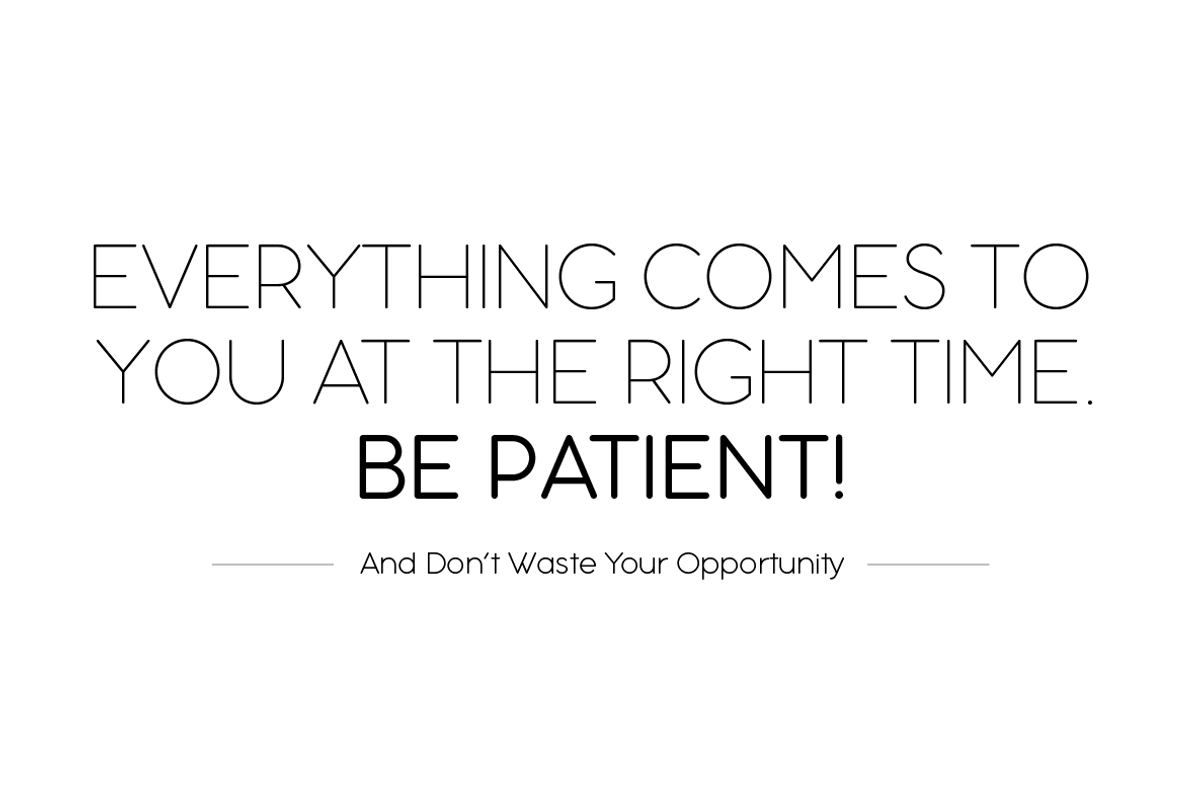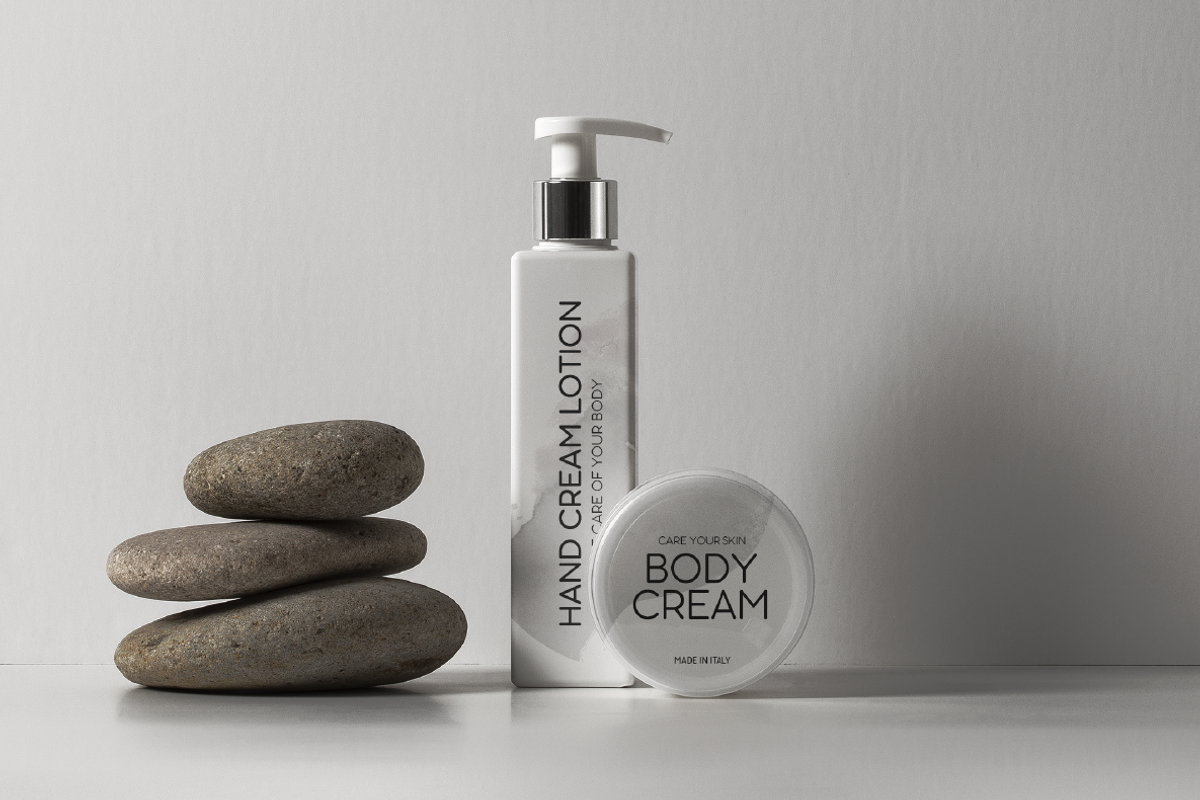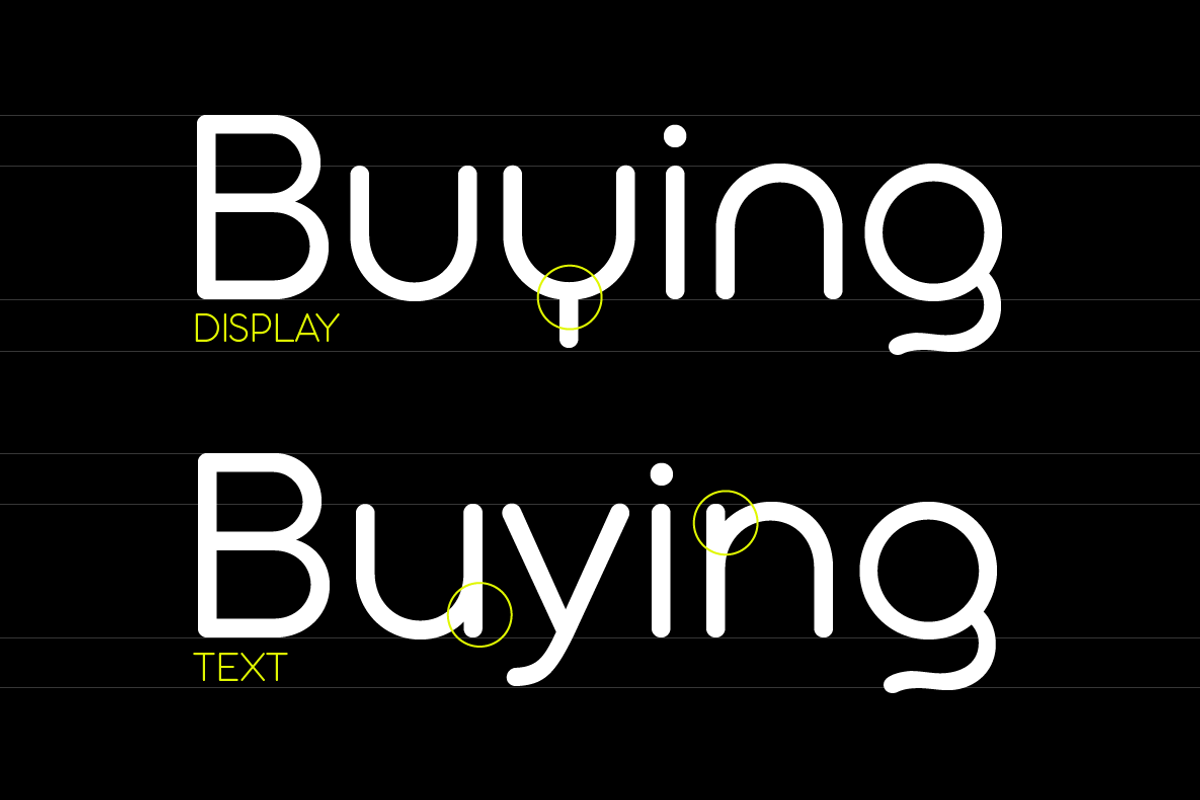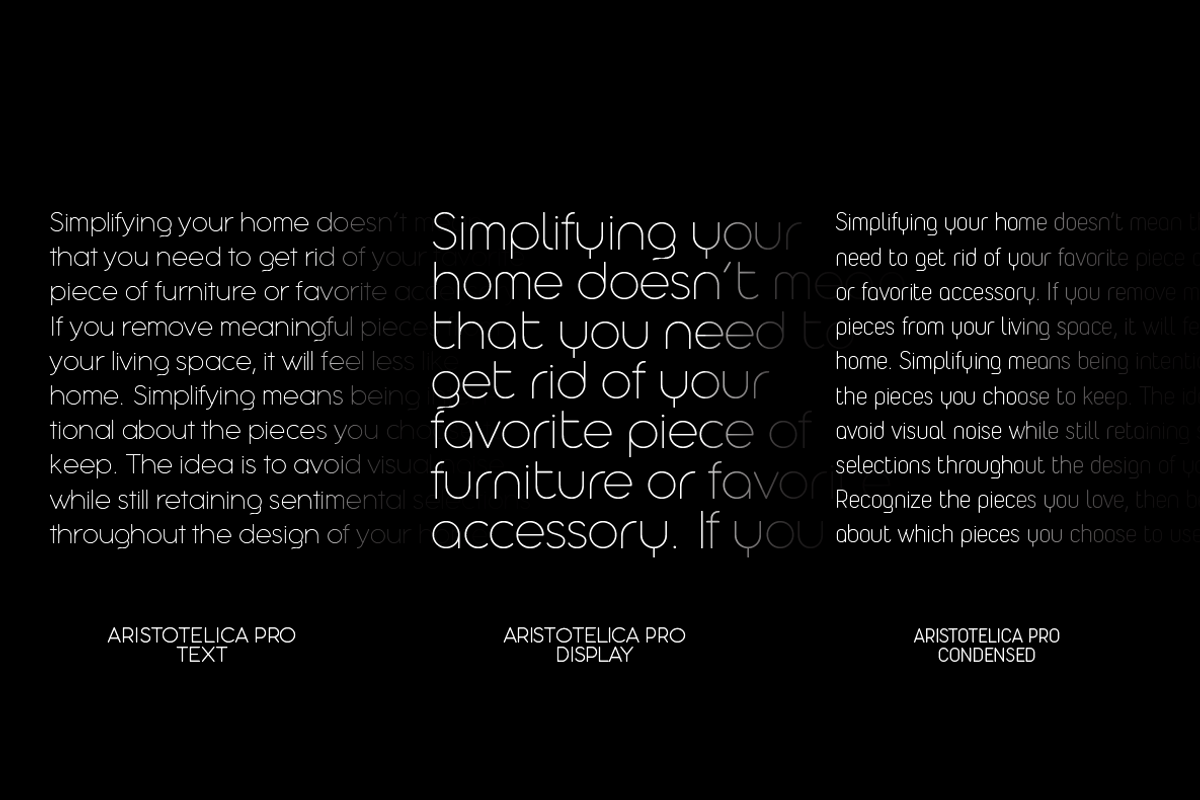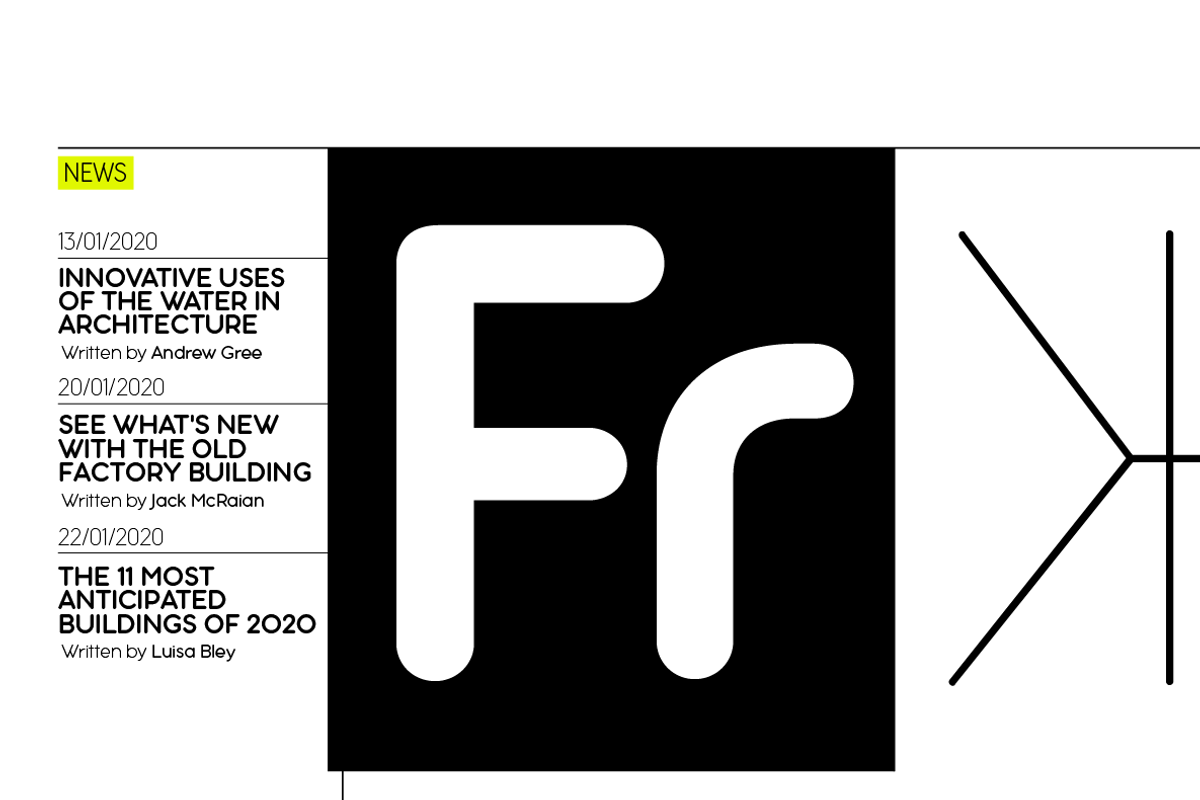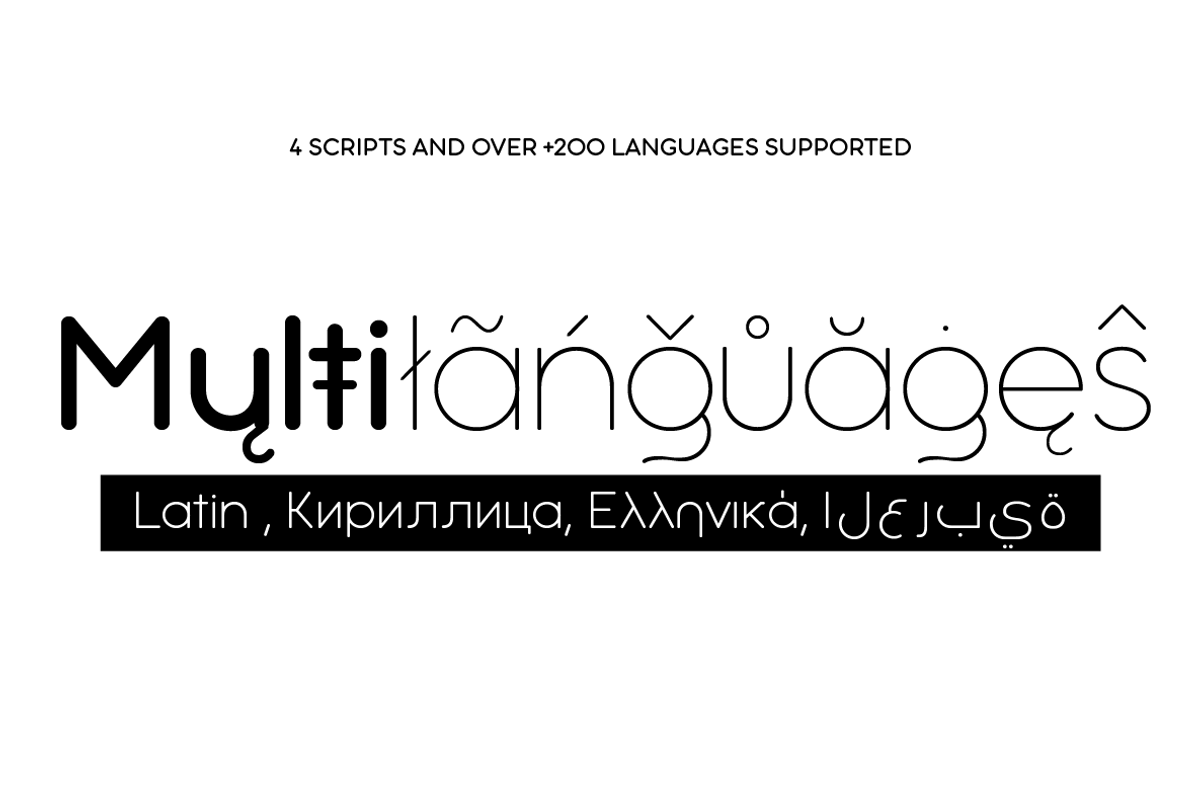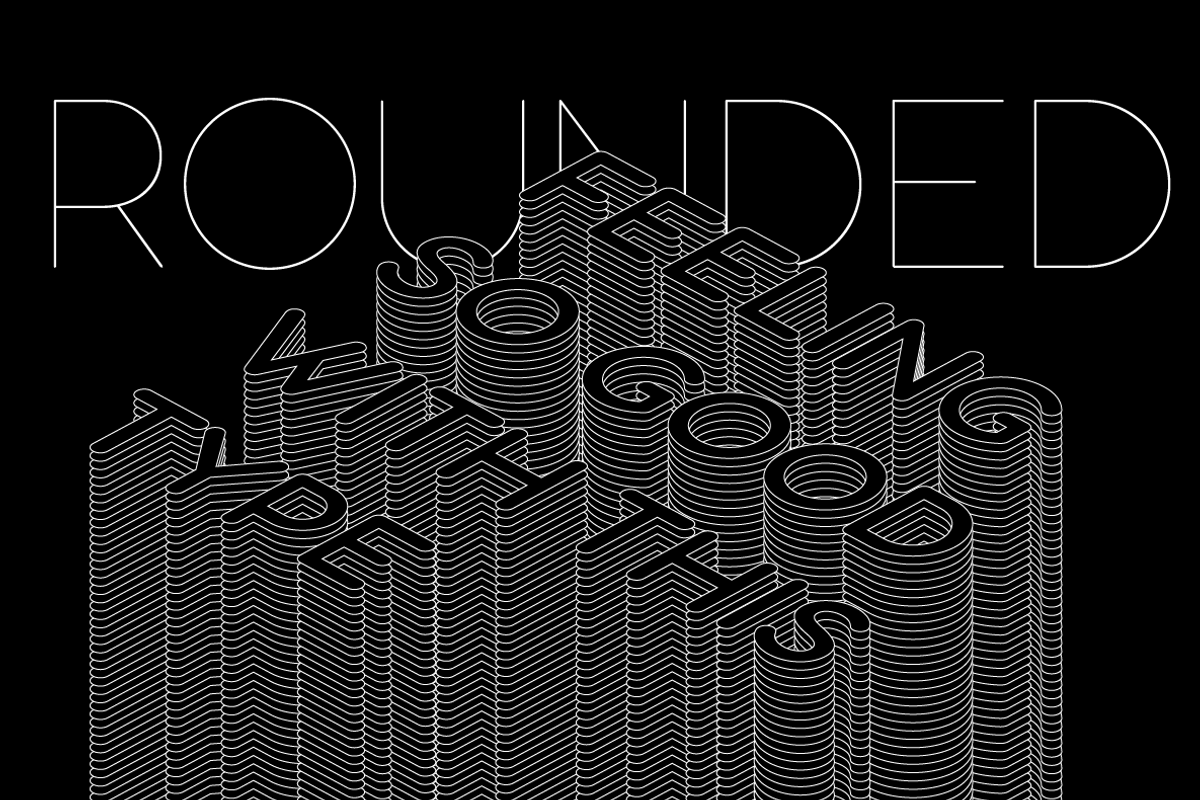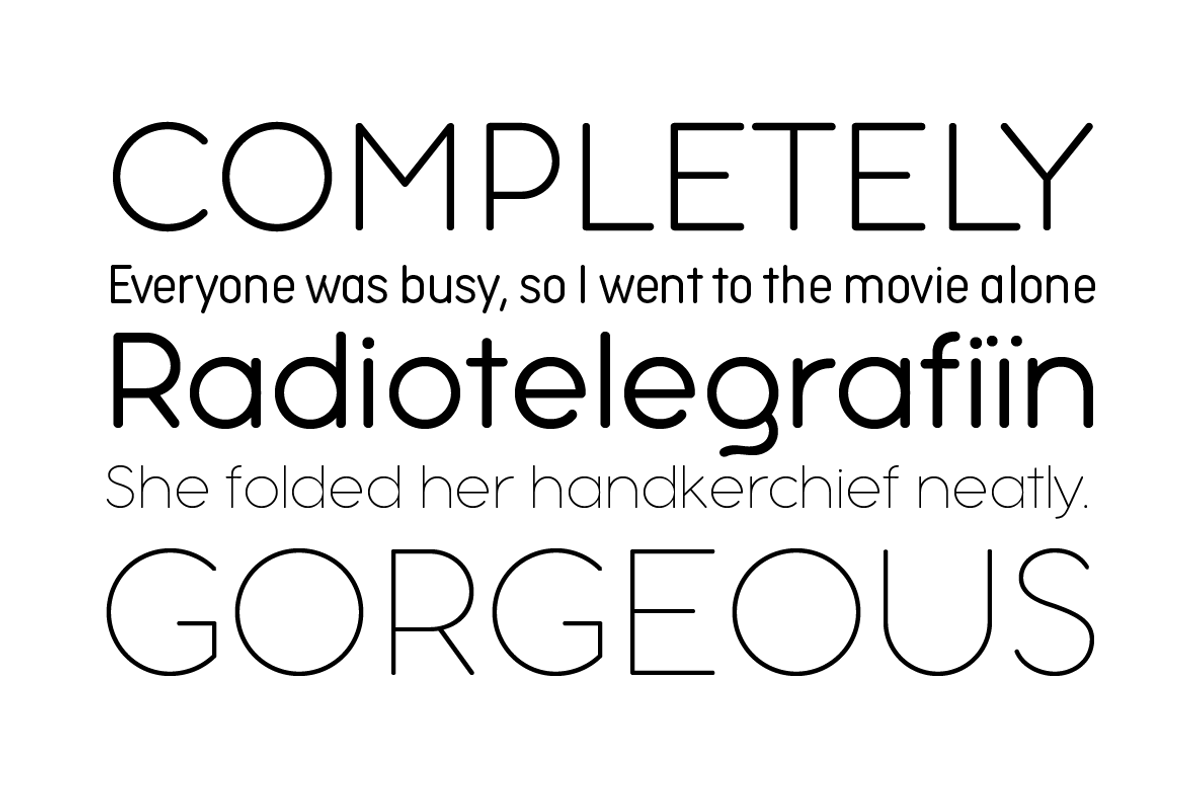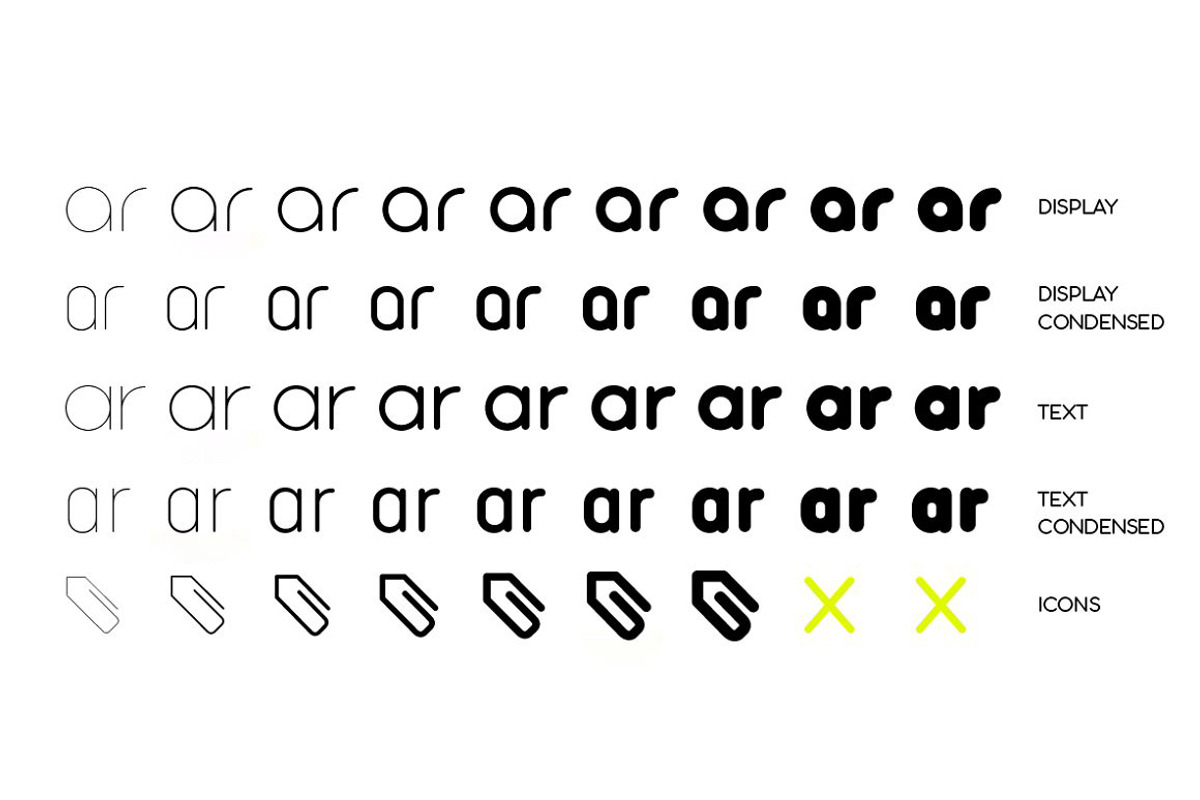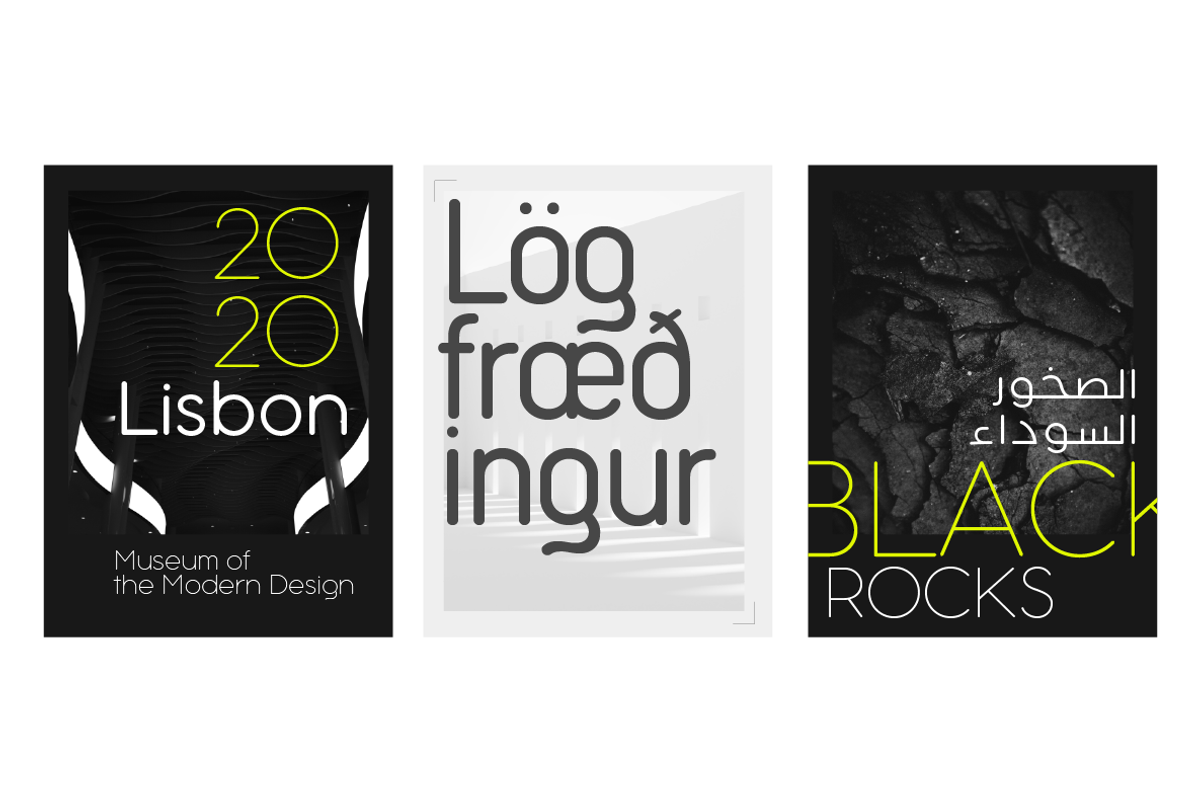
Aristotelica Pro - 43 fonts
Aristotelica Pro is the 2020 redesign of the rounded geometric sans designed by Cosimo Lorenzo Pancini and Andrea Tartarelli developing the original philosophy of one of the classic and best-selling Zetafonts typefaces, Arista by Francesco Canovaro, Originally conceived as an exercise in restraint and simplicity, Aristotelica is typographic eulogy to the simple beauty of circular shapes, aptly named after the greek philosopher who pioneered formal logic. It shows its strengths mostly in display uses and logo design, with a palette of moods ranging from the stark elegance of the uppercase hairline weights to the playful softness of the lowercase bold weights. True to its universalist calling, it has however been developed in a variant text version that applies slight corrections to design and metrics to allow for better legibility in long body copy. In Aristotelica Pro both the display and the text subfamilies have been complemented with a condensed version, though especially for mobile screens and other situations where space-saving is a concern. Also the original language coverage (extended latin, greek and cyrillic) has been expanded with the inclusion of arabic language glyphs, bringing the typeface to a total of over 1100 glyphs and 200 languages covered. The family is further enriched by the inclusion of Aristotelica Icons, a set of matching variable-width monoline icons that can be used to faultlessly match the typeface line width. Open type features includes stylistic alternates, old style and lining figures and small caps.